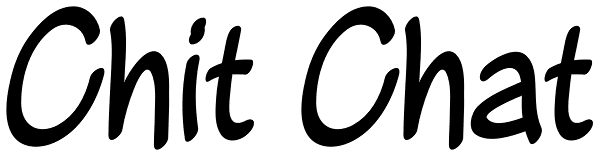
Chit Chat
A brush font that keeps its legibility without sacrificing its free-spirit. Usage recommendations: Captions, packaging, cards, posters, ads, book jackets, manuals, and menus.